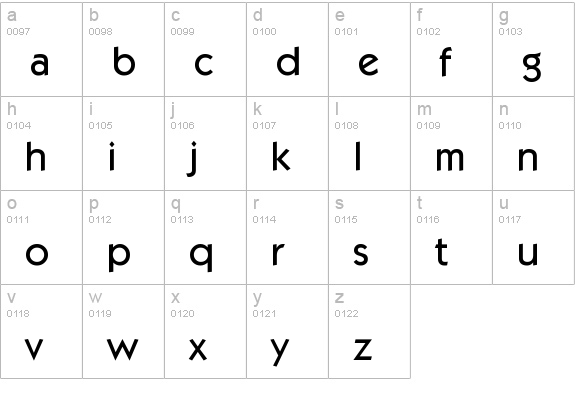
KaratMedium Regular Font Details
KaratMedium Regular is the standard, neutral variant in the KaratMedium typeface family \xE2\x80\x94 well suited to general body text, paragraphs, and standard typographic work.
KaratMedium Regular is a versatile and stylish font that combines elegance with a touch of modernity. With its clean lines and balanced proportions, this font is perfect for a wide range of design projects, from branding and advertising to editorial layouts and website design. This font features a medium weight, making it easily readable and suitable for both headlines and body text. Its timeless appeal and classic letterforms add a touch of sophistication to any project, whether it's a business card, a brochure, or a website. One of the best things about KaratMedium Regular is that it is freely available to download at FontsMarket.com. This means that you can easily access and use this font without any restrictions or limitations. Whether you're a professional designer or a hobbyist, you can add this font to your collection and use it in your projects without worrying about licensing fees or usage restrictions. With its versatility, elegance, and availability, KaratMedium Regular is a must-have font for anyone looking to add a touch of style and sophistication to their design projects. Download it for free at FontsMarket.com and elevate your designs to a whole new level.